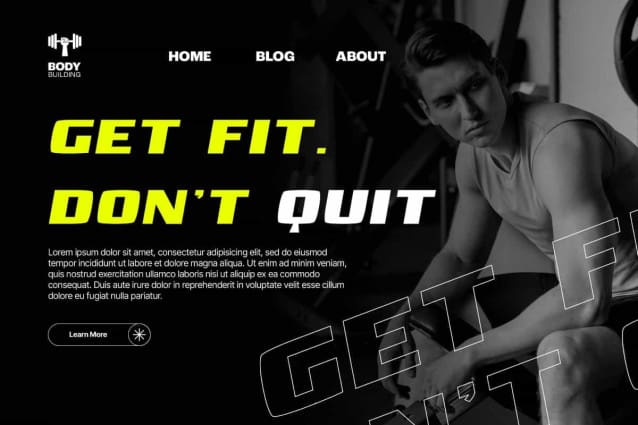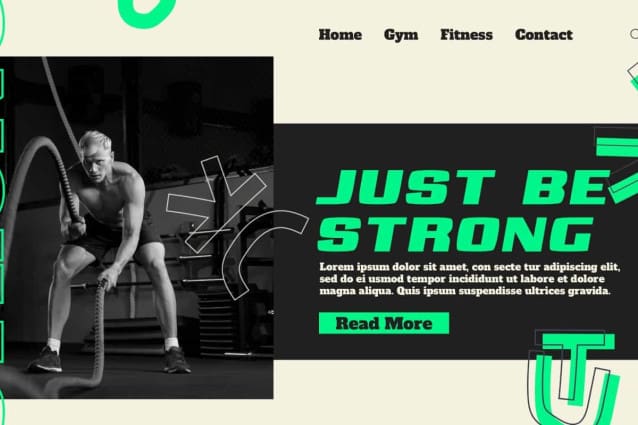
Simple Sport Font
Simple Sport Font is a modern minimal display racing font that has awesome potentials. This font has bold letter characters so it can make your design stand out and be read clearly. It will be good for any designs, such as advertisement, brand image, custom design, invitation, label, marketing material, poster , product packaging, quotes, signage, website page, and more!
Simple Sport Font includes a full set of ALL CAPS for Uppercase and Lowercase Letters, Numerals, and large range of Punctuation. This awesome font with a racing vibe will be suitable for various industries, such as automotive, barber shop, cafes, event or festival, fashion, game, photography, printing, publishing, sports, etc.